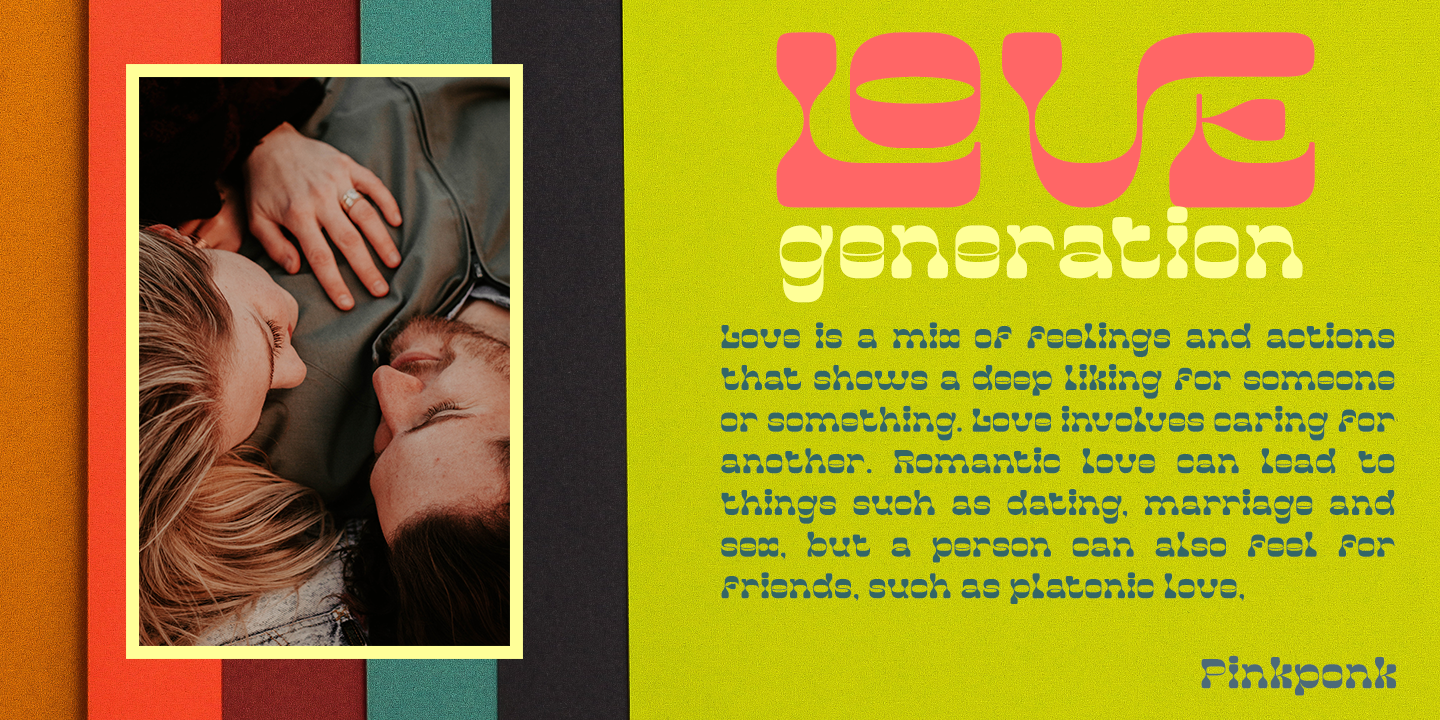
Pinkponk Font
Pinkponk Display Font has the potential to bring each of your creative ideas to the highest level. Combine with ligatures and special alternative glyphs so you can create a lots with layouts and compositions. Pinkponk brings a touch of 80’s and 90’s era bespoke custom typography to logos, websites, social media quotes, wedding branding, and more.